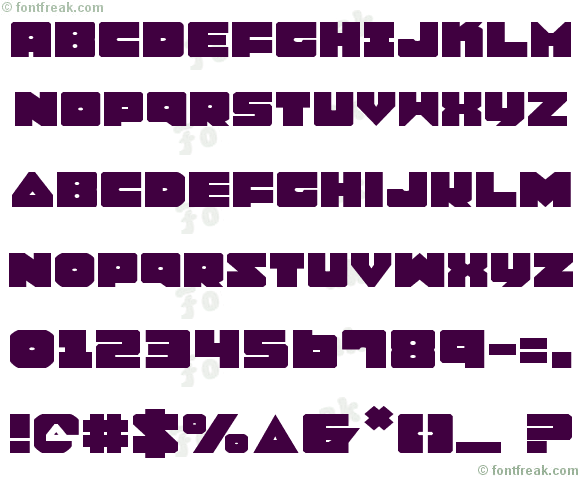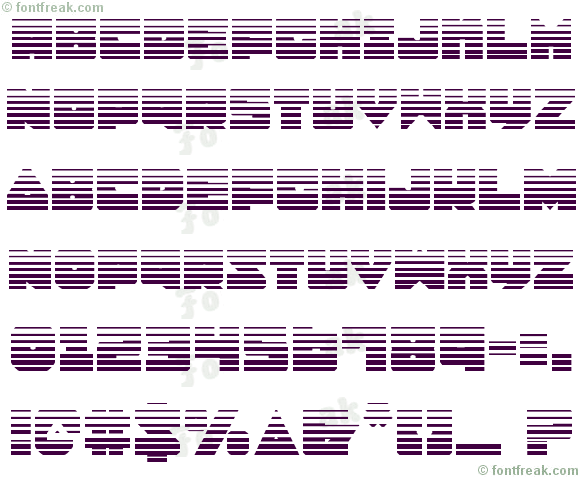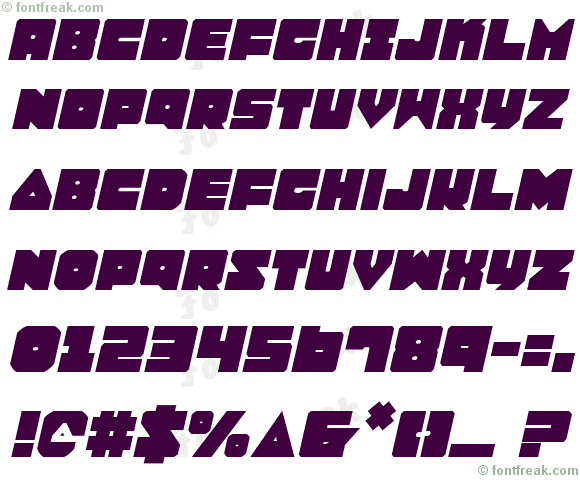
Lobo Tommy Condensed
Lobo Tommy ExpItalic
Lobo Tommy CondItalic
Lobo Tommy Gradient
Lobo Tommy Rotalic
Lobo Tommy Pro
Lobo Tommy Gradient Italic
Lobo Tommy 3D Italic
Lobo Tommy Expanded
Lobo Tommy Italic
Lobo Tommy Pro Italic
Lobo Tommy
Lobo Tommy 3D
Lobo Tommy Rough
Lobo Tommy, crafted by Iconian Fonts, is a striking display font that effortlessly combines personality and style. Released in 2008, this font falls under the category of decorative typefaces, showcasing a unique design that captures attention. The visual characteristics of Lobo Tommy are defined by its bold, condensed letterforms that feature a robust stroke weight and minimal contrast. The design is further enhanced by its distinctive geometric shapes and playful curves, resulting in a modern yet timeless aesthetic that can elevate any project.
This font is particularly versatile, making it an excellent choice for a variety of applications. It works beautifully on movie posters, where its boldness can draw viewers in. Additionally, Lobo Tommy is perfect for restaurant menus, allowing establishments to present their offerings in a fun and inviting manner. Graphic designers will appreciate its effectiveness in branding projects, where a strong visual identity is crucial. The font also suits event promotions, adding a unique flair to flyers and advertisements. Content creators can utilize Lobo Tommy in their social media graphics, ensuring their posts stand out in crowded feeds.